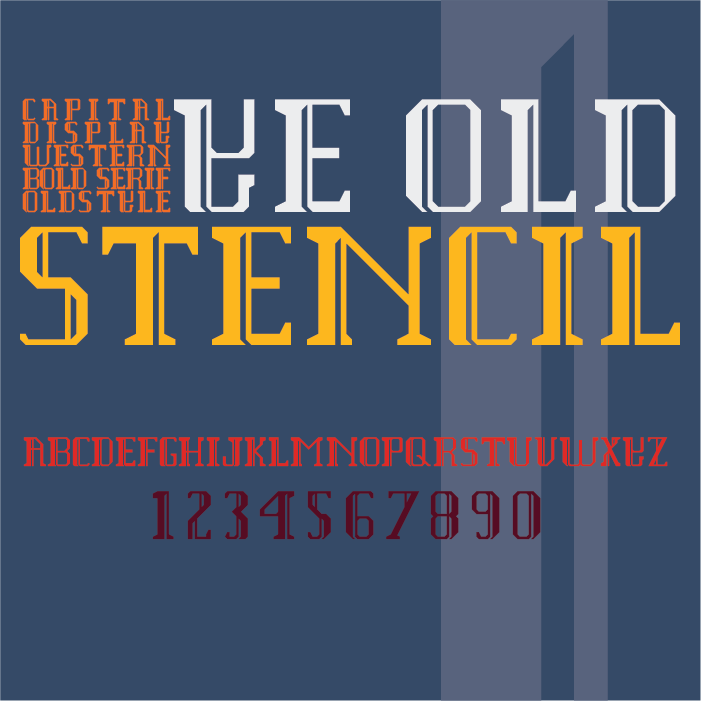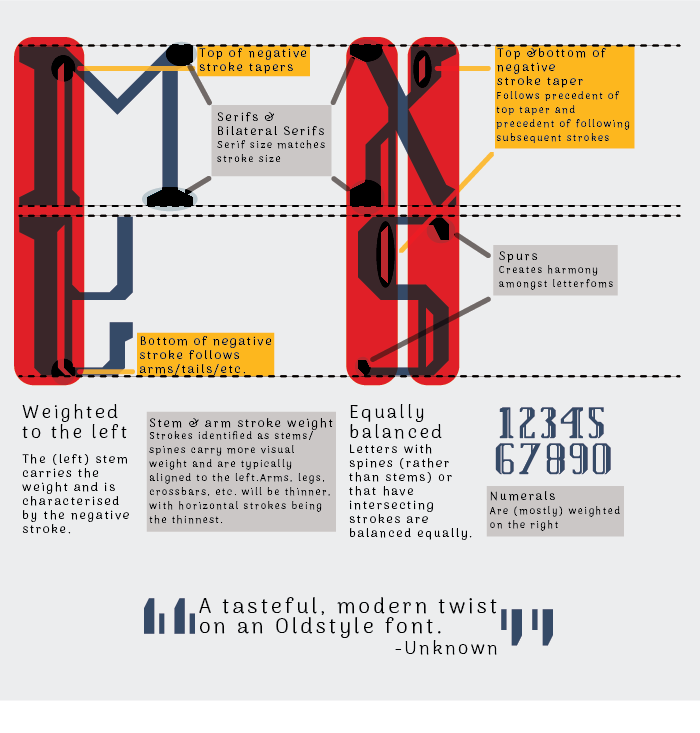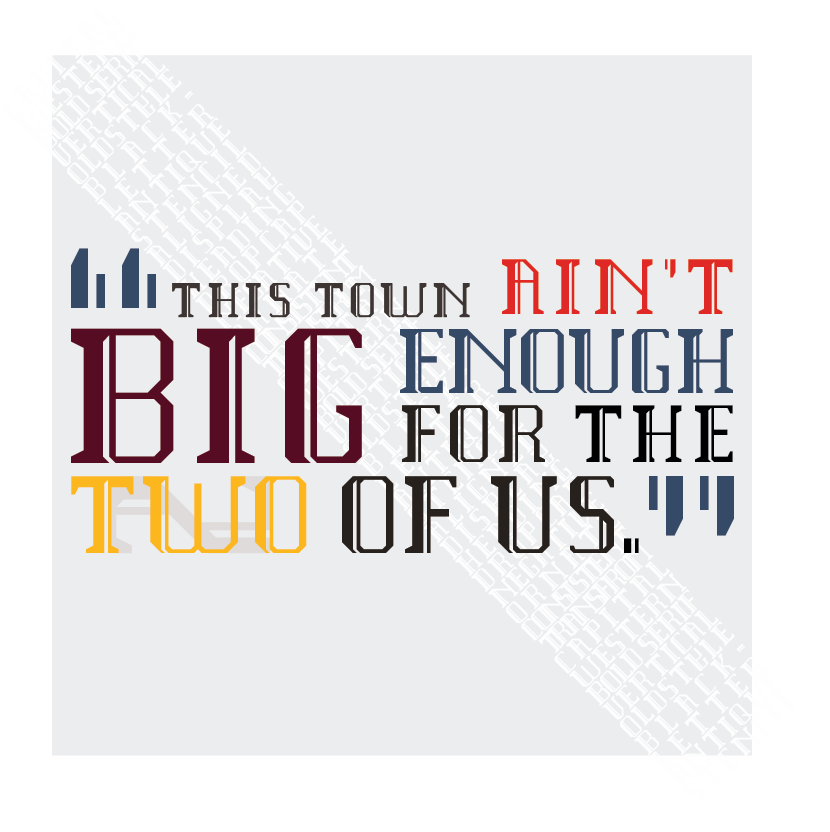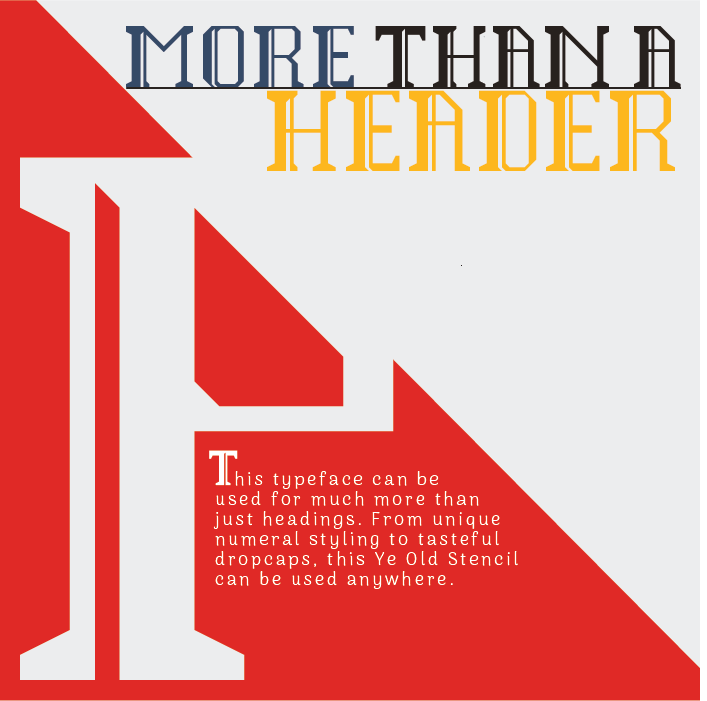
I'm sorry to break it to you. This is not a stencil font.
Stencil letters work by using a cut-out template (stencil) placed on a surface, allowing paint to be applied only through the open areas to create specific characters. They rely on "bridges"—tiny, uncut sections—to hold the inner parts of letters (like 'O' or 'A') together.  (Source: Google)
Your design has no such "bridges".
To be honest, this is more an art deco font than a stencil font.
Ye Old Decoby BeccaDavil